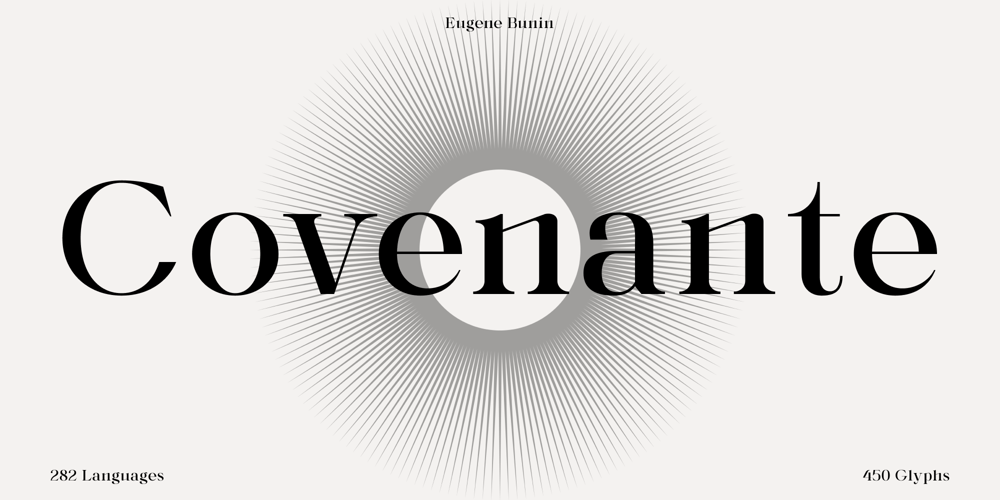
Covenante Font Family was designed by Eugene Bunin and published by Harvester Type. Covenante contains 1 styles and family package options. Covenante is an antique font that contains futuristic elements that give it an unusual look. Sharp serifs and unusual shapes of ovals, create a solid character and make the font fresh.More language support, ligatures, and alternative characters will increase the font’s usability. 450 glyphs, 282 languages of the Latin group, 7 alternative characters, 21 ligatures, a capital set and more than one day spent for kerning-create a great potential for this font.Text, covers, posters, prints, titles, interfaces, web, book covers, packaging, logos, and much more where you can apply this font.If you find an error in the font, kerning, or just want to add something or suggest something, then write to me: bunineugene@gmail.com